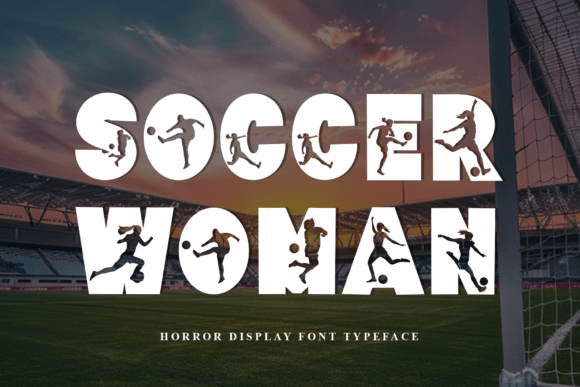
Soccer Woman Font: A Bold and Dynamic Decorative Font for Sports Enthusiasts
The Soccer Woman Font is a striking and energetic decorative font that embodies the spirit of women’s soccer. This bold font combines strong geometric letterforms with dynamic soccer-themed silhouettes of female athletes, making it perfect for sports posters, team branding, athletic events, or fan merchandise.
Unique Characteristics of Soccer Woman Font
The Soccer Woman Font stands out from other decorative fonts due to its unique blend of geometric shapes and soccer-themed silhouettes. Each character is meticulously crafted to showcase action-packed poses of female athletes, injecting a sense of energy and dynamism into every letter.
The font’s design is centered around celebrating the strength, movement, and spirit of women’s soccer. The bold and geometric letterforms provide a solid foundation, while the soccer-themed silhouettes add a touch of elegance and sophistication.
Key Features of Soccer Woman Font
- Bold and Dynamic Design: The Soccer Woman Font boasts a bold and dynamic design that is sure to grab attention.
- Soccer-Themed Silhouettes: Each character features striking soccer-themed silhouettes of female athletes in action-packed poses.
- Geometric Letterforms: The font combines strong geometric letterforms with soccer-themed silhouettes, creating a unique and eye-catching design.
- Energetic and Empowering Style: The font’s energetic and empowering style makes it perfect for sports posters, team branding, athletic events, or fan merchandise.
Perfect for Sports Posters and Team Branding
The Soccer Woman Font is an excellent choice for sports posters, team branding, and athletic events. Its bold and dynamic design makes it perfect for grabbing attention and creating a lasting impression.
Whether you’re designing a poster for a women’s soccer tournament or creating a brand identity for a sports team, the Soccer Woman Font is sure to make a statement. Its unique blend of geometric shapes and soccer-themed silhouettes will set your design apart from the rest.
Use Cases for Soccer Woman Font
- Sports Posters: Use the Soccer Woman Font to create eye-catching posters for women’s soccer tournaments, events, or matches.
- Team Branding: Create a strong brand identity for your sports team with the Soccer Woman Font.
- Athletic Events: Use the font to design promotional materials for athletic events, such as flyers, brochures, or social media graphics.
- Fan Merchandise: Create stylish and energetic fan merchandise, such as t-shirts, hats, or water bottles, with the Soccer Woman Font.
Why Choose Soccer Woman Font?
There are several reasons why you should choose the Soccer Woman Font for your next design project:
- Unique Design: The Soccer Woman Font boasts a unique and eye-catching design that will set your project apart from others.
- Energetic and Empowering Style: The font’s energetic and empowering style is sure to inspire and motivate your audience.
- Versatile: The Soccer Woman Font is versatile and can be used for a variety of design projects, from sports posters to team branding.
- High-Quality: The font is designed with high-quality and attention to detail, ensuring that it will look great in any design project.
Tips for Using Soccer Woman Font
Here are some tips for using the Soccer Woman Font in your design projects:
- Use it Sparingly: Use the Soccer Woman Font sparingly to create emphasis and draw attention to specific parts of your design.
- Pair it with Other Fonts: Pair the Soccer Woman Font with other fonts to create a unique and visually appealing design.
- Experiment with Colors: Experiment with different colors to find the perfect combination that matches your brand or design.
- Keep it Consistent: Keep your design consistent by using the Soccer Woman Font throughout your project.
The Soccer Woman Font is a bold and dynamic decorative font that is perfect for sports enthusiasts and designers alike. Its unique blend of geometric shapes and soccer-themed silhouettes makes it a standout font that is sure to grab attention.
Whether you’re designing a sports poster, creating a brand identity for a sports team, or simply looking for a font that embodies the spirit of women’s soccer, the Soccer Woman Font is an excellent choice.
With its energetic and empowering style, the Soccer Woman Font is sure to inspire and motivate your audience. So why wait? Try the Soccer Woman Font today and take your design project to the next level!